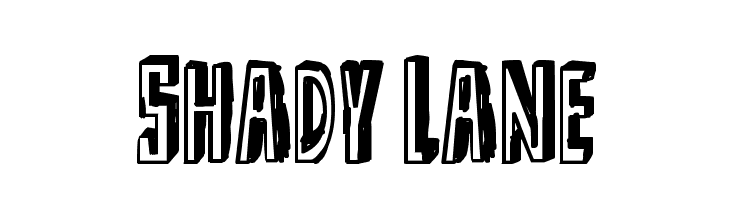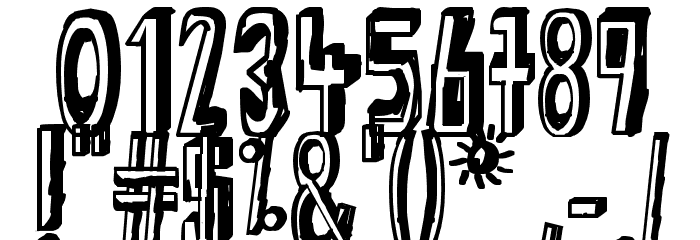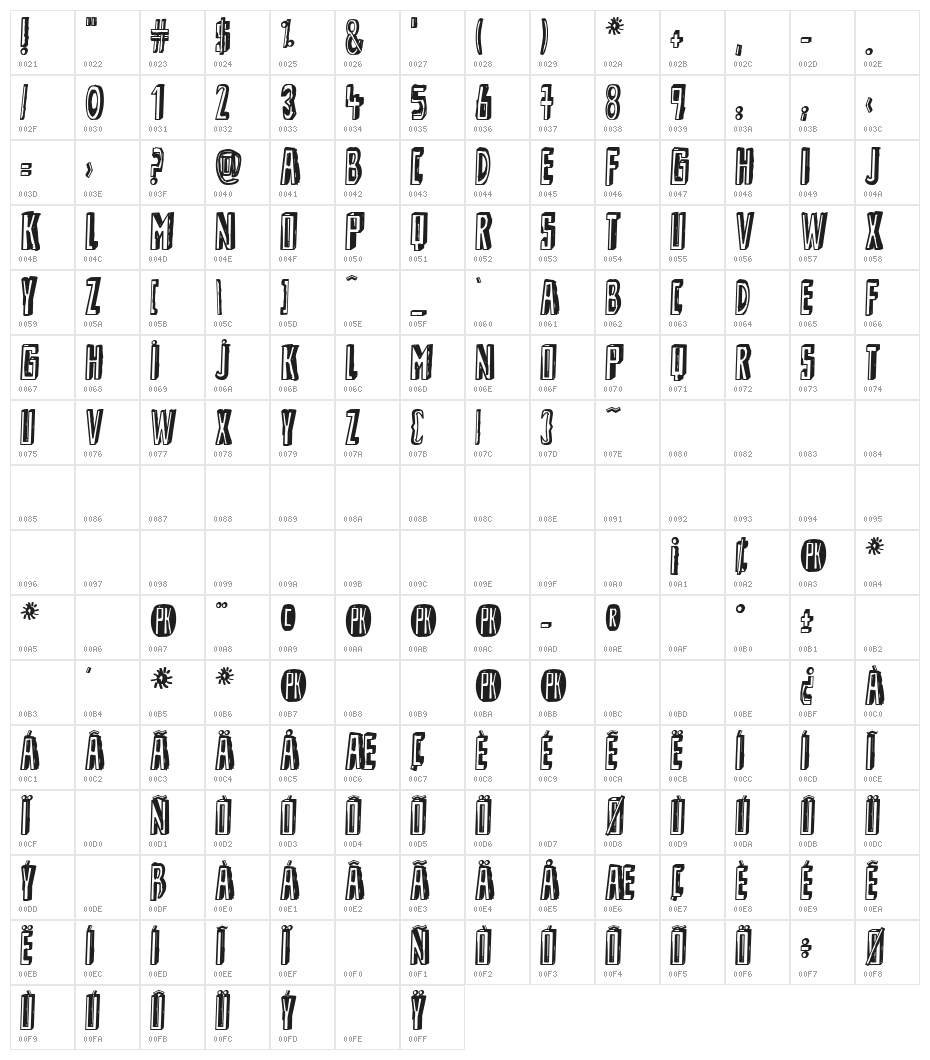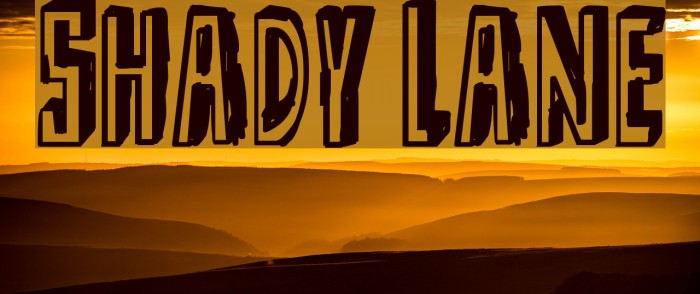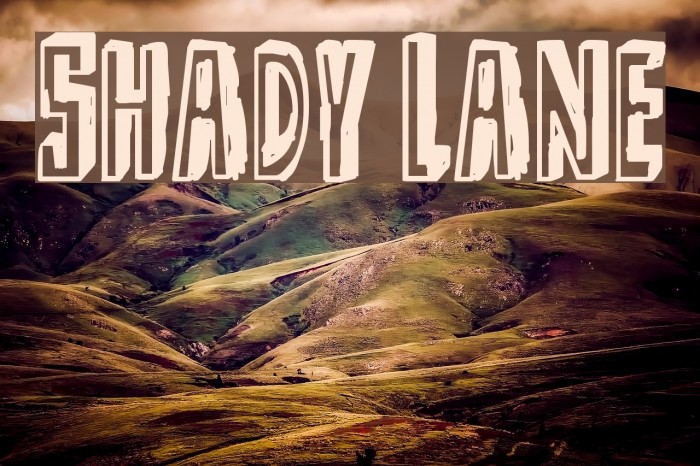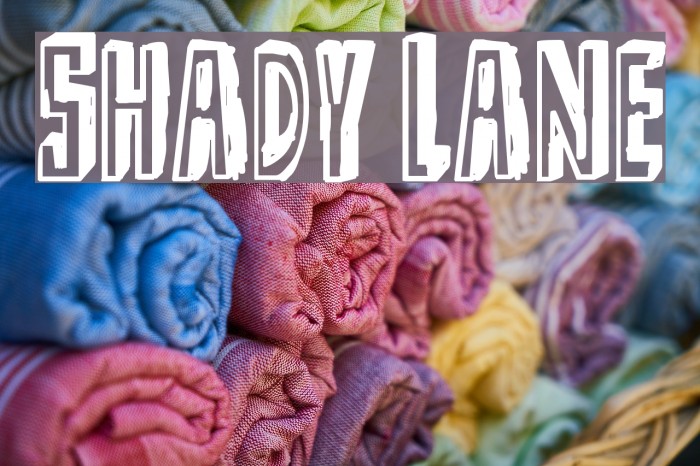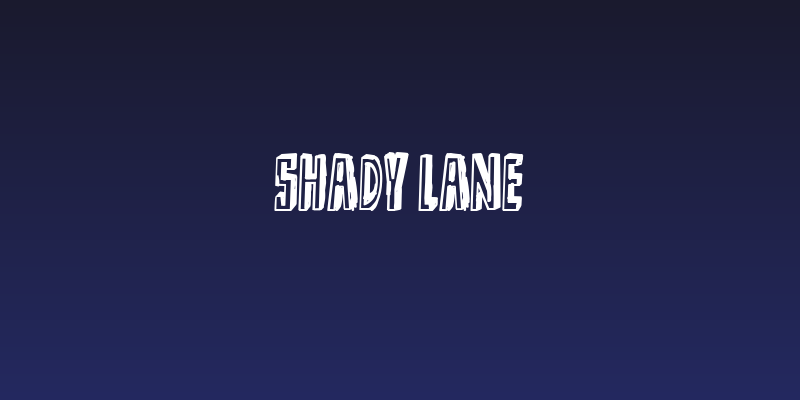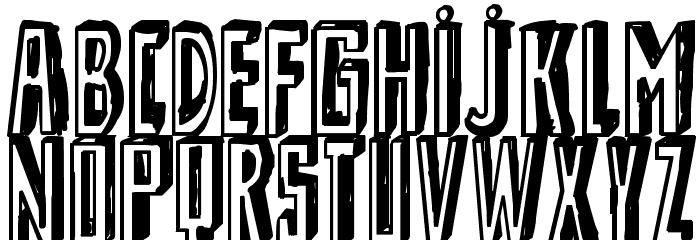
Shady Lane Font
Shady Lane Description
This font features a bold, decorative style with a shadow effect that gives it a three-dimensional appearance. The uppercase and lowercase letters are designed with a playful, artistic flair, incorporating irregular edges and a hand-drawn aesthetic. The numbers and special characters maintain this unique style, making the font suitable for creative and eye-catching designs. The overall look is dynamic and engaging, perfect for projects that require a standout visual element. The font's boldness and distinct shadowing make it ideal for use in headlines, posters, and other display purposes where impact is essential.
| Proposed Projects | Ideal for posters, headlines, album covers, and creative branding projects. |